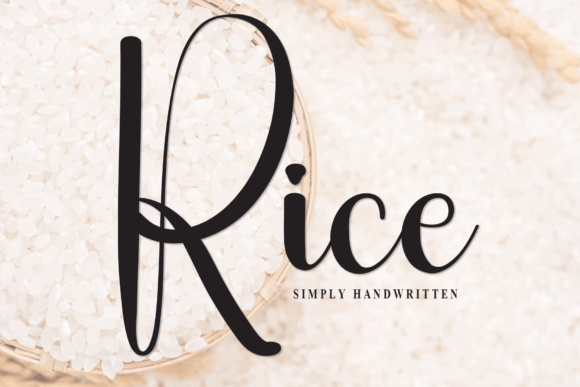
Embark on a typographic journey with the Rice Font, a beautiful script font family that exudes sweetness and warmth. Inspired by the festive spirit of Christmas, this font captures the joy and cheer of the holiday season in every letterform.
Crafted with precision by the talented William Jhardy, the Rice Font is a true gem for designers seeking a touch of whimsy and elegance. Its fresh and neat appearance makes it a perfect choice for creating wedding invitations, greeting cards, posters, and branding materials that demand a dash of personality.
With its flowing strokes and charming curves, the Rice Font adds a touch of sophistication to any design project. Whether you're a seasoned designer or just starting out, this font is easy to use and versatile enough to suit a wide range of projects.
Unleash your creativity and let the Rice Font take your designs to new heights. Its delightful character will add a touch of magic to your work, leaving a lasting impression on your audience.
Key features of the Rice Font:
- Charming and friendly handwritten style
- Perfect for Christmas-themed designs
- Ideal for creating wedding invitations, cards, and branding materials
- Easy to use and versatile